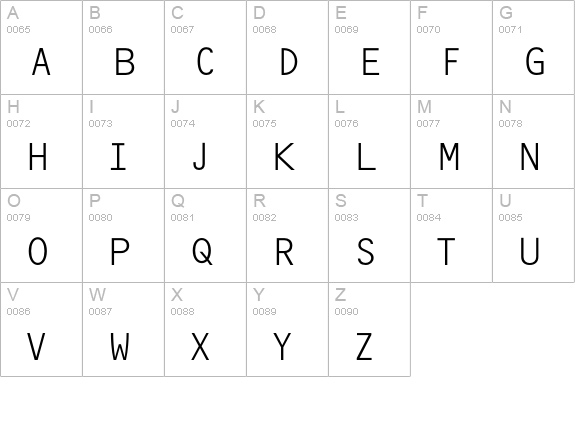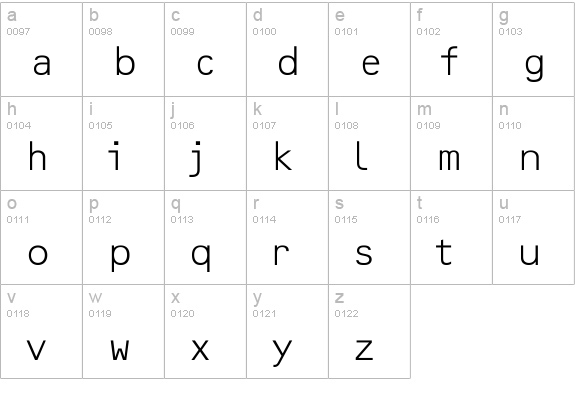
OCRF-Light is a refined, elegant variant in the OCRF typeface family \xE2\x80\x94 well suited to elegant body text, refined sub-headings, and luxury branding.
OCRF-Light is a versatile and modern font that combines the classic look of OCR fonts with a sleek and contemporary style. Its clean lines and sharp edges make it perfect for a wide range of design projects, from professional documents to digital artwork. The OCRF-Light font is designed to be easy to read while still maintaining a sense of sophistication and elegance. Best of all, OCRF-Light is completely free to download at FontsMarket.com. This means you can use this high-quality font in your projects without any cost, making it a valuable resource for designers, students, and anyone looking to add a touch of refinement to their work. Don't miss out on the opportunity to enhance your designs with the OCRF-Light font, available for free at FontsMarket.com.